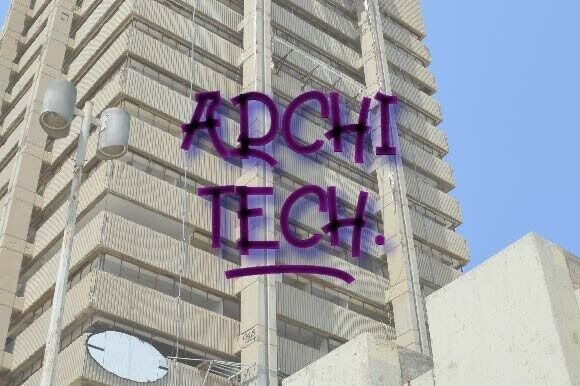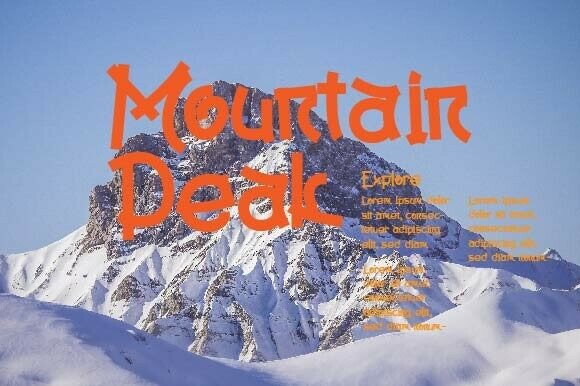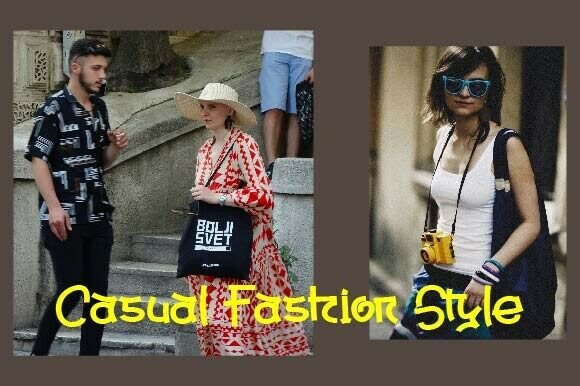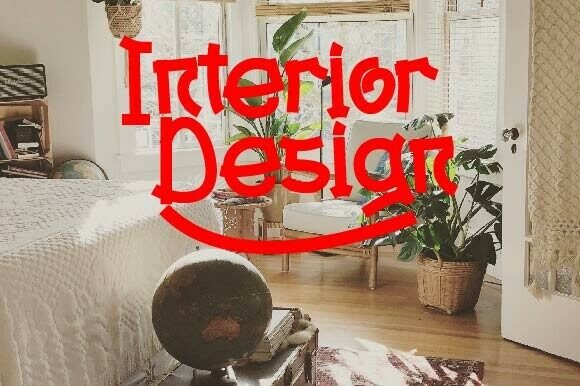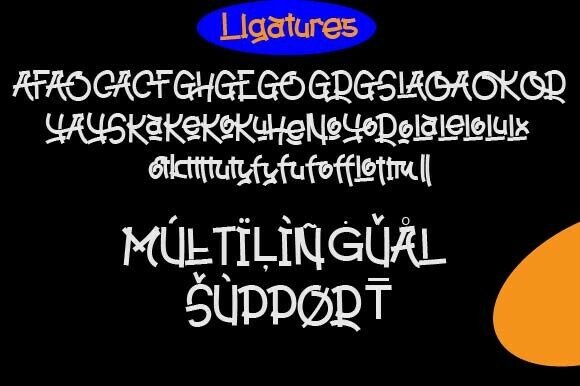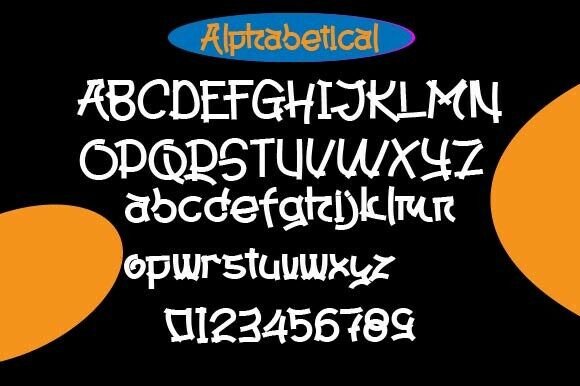
Introduction to Rock Font
Introducing Rock – an extraordinary and whimsically unique display font that’s sure to catch attention with its playful soul.
Its one-of-a-kind handwriting style brims with a vivacious, electrifying character Boasting additional ligatures and swashes, Rock optimizes pairing possibilities for a customized typographical experience, breathing life into your artistic endeavors.